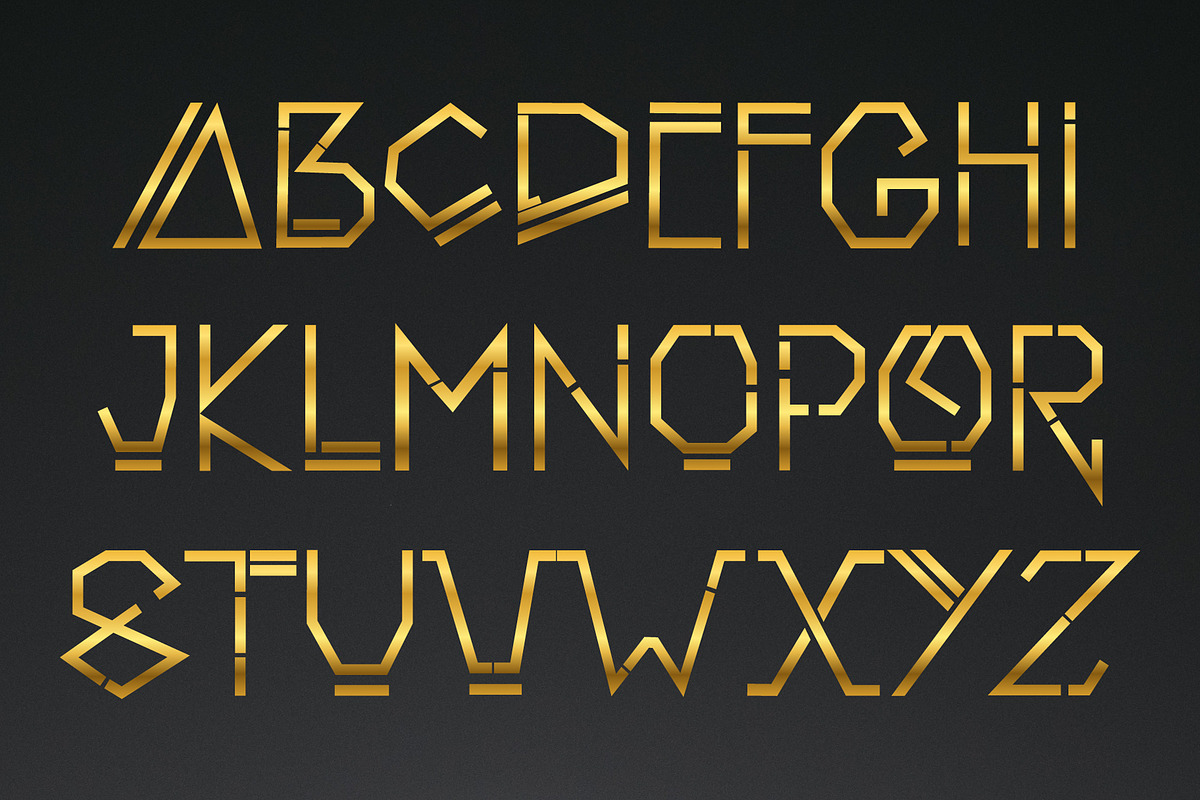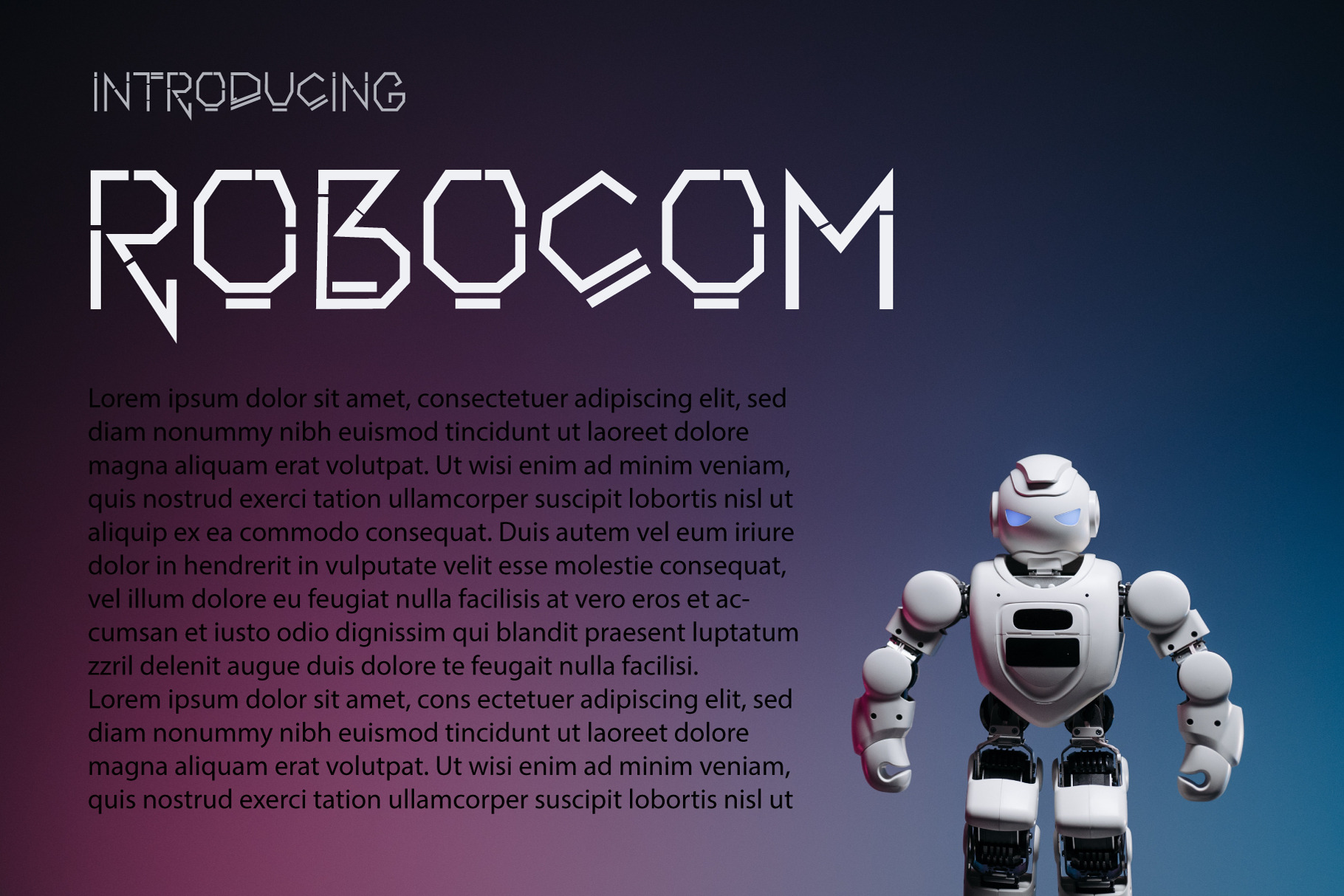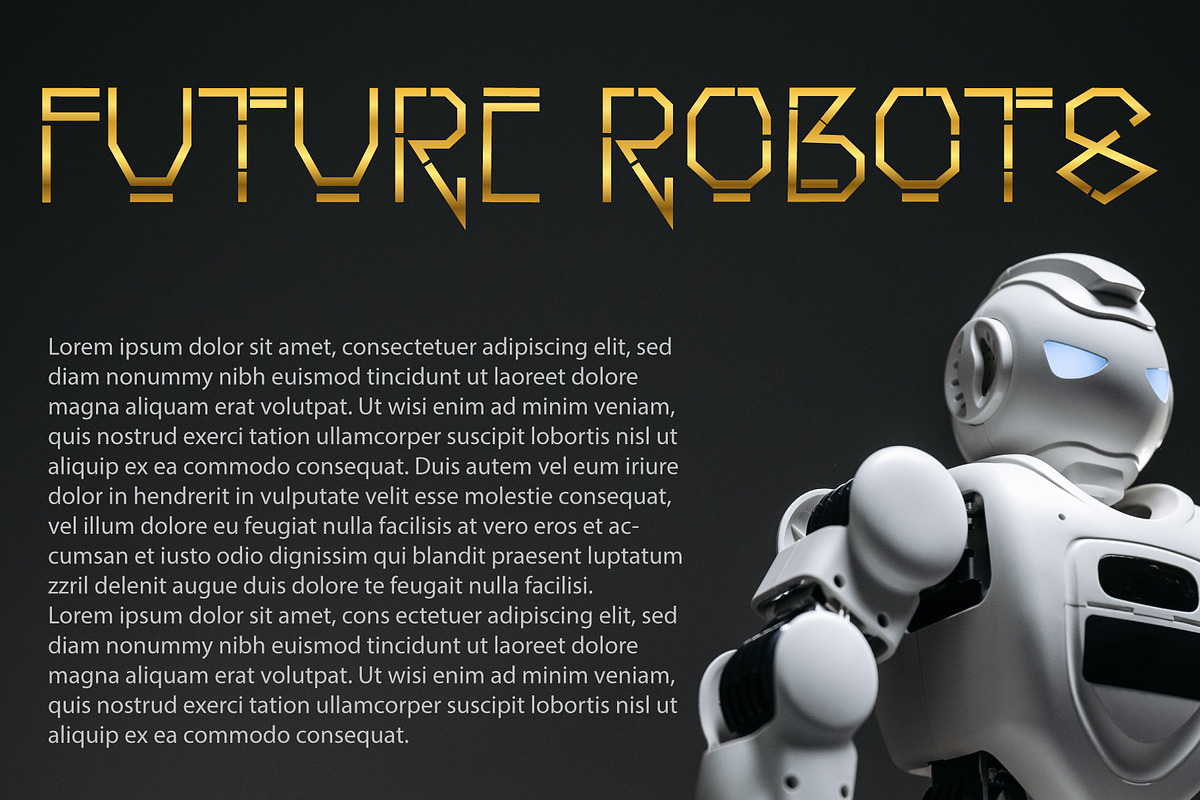
Robocom – Futuristic Display Font
Step into the future with Robocom – a bold, futuristic display font crafted for maximum visual impact. With its sleek lines, modern geometry, and sci-fi-inspired style, Robocom is designed to stand out in digital and print formats alike.
Perfect for titles, tech content, digital branding, and entertainment media, Robocom brings a high-tech, forward-thinking vibe to any project. Whether you're working on a YouTube thumbnail, a comic title, or a cutting-edge product name, this font delivers a clean, modern look that commands attention.
Great for:
YouTube thumbnails and channel titles
Instagram and Twitter graphics
Facebook ads and digital banners
Comic books and animated content
Entertainment branding and TV shows
Tech startups and futuristic logos
Product packaging and name design
Posters, flyers, and sci-fi-themed projects
With its futuristic aesthetics and sharp detailing, Robocom is ideal for creatives who want their message to look bold, modern, and a little ahead of its time.
All-caps design for powerful headlines
Numbers and punctuation
Futuristic and geometric letterforms
Clean and modern styling
Ideal for both web and print projects
Let Robocom power your message with a futuristic edge that feels right at home in the digital age.